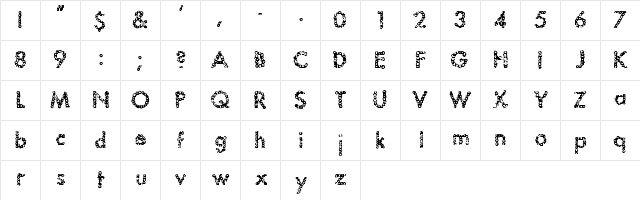
JptBubbles Regular
Design Context for JptBubbles
JptBubbles has an approachable, lighthearted character - its loose, expressive forms are well-suited to children's content, casual branding, and fun-first design.
Font Pairing: Pairs well with a rounded or humanist sans for body copy, maintaining the friendly tone without relying on JptBubbles to carry extended reading.
Pro Tip: Use JptBubbles at larger display sizes where its expressive character can land. Pair with a clean, simple sans for body copy to maintain readability.